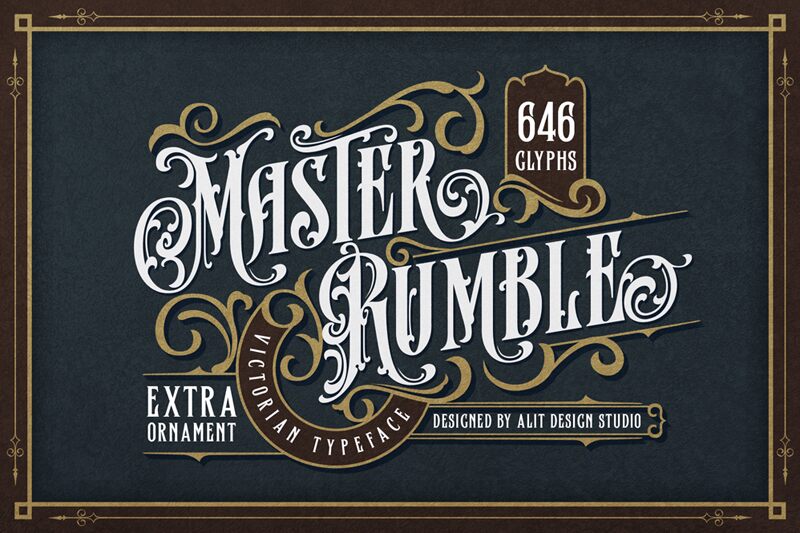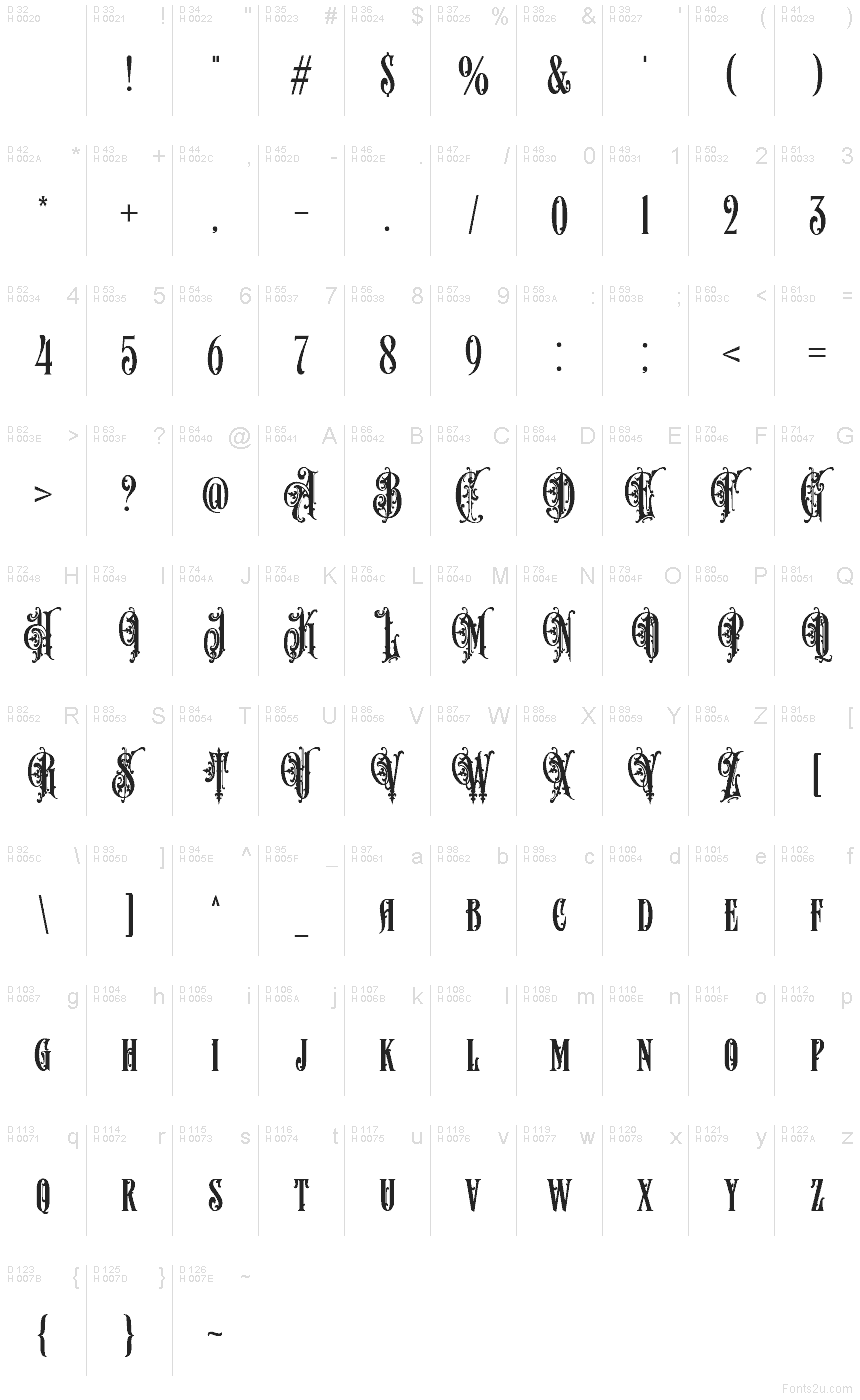
Master Rumble Regular
Master Rumble font by Alit Design is a condensed display font that takes inspiration from the traditional elegance of Victorian styles. The vintage typeface is condensed and carries Gothic vibes, elaborate embellishments, and historical resonance. Letters have thin sides, most of which expand into wider decorated tops and bottoms.
Use this free font to create tattoo designs, product labels, beverage labels, posters, book covers, magazine headlines, apparel prints/labels. It’s an outstanding match to combine the old-time relevance with modern graphic design ideas in websites or mobile apps.